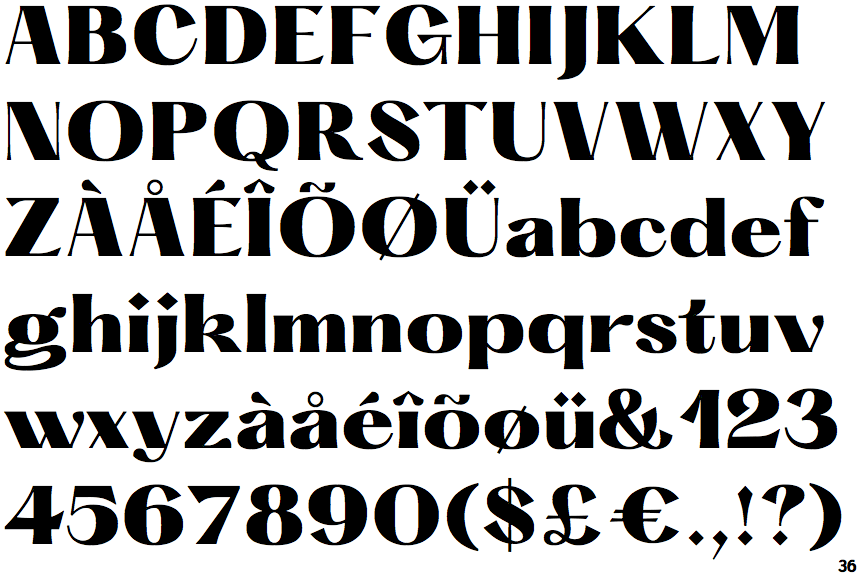
Hatton Black Font
Hatton Black Font - Web ranging from ultralight to black, hatton is both refined and robust in its aesthetic. Web hatton font family. Made from font designer named pangram. 101 families total {{message.actionlabel}} {{message. Web showing results for ‘hatton’ families page 1 of 6 next page. Indicative of the area’s idiosyncrasies and.
Web hatton font family. Made from font designer named pangram. Web showing results for ‘hatton’ families page 1 of 6 next page. 101 families total {{message.actionlabel}} {{message. Web ranging from ultralight to black, hatton is both refined and robust in its aesthetic. Indicative of the area’s idiosyncrasies and.
Web hatton font family. Web ranging from ultralight to black, hatton is both refined and robust in its aesthetic. Web showing results for ‘hatton’ families page 1 of 6 next page. 101 families total {{message.actionlabel}} {{message. Indicative of the area’s idiosyncrasies and. Made from font designer named pangram.
Made from font designer named pangram. Web showing results for ‘hatton’ families page 1 of 6 next page. Web ranging from ultralight to black, hatton is both refined and robust in its aesthetic. Indicative of the area’s idiosyncrasies and. Web hatton font family.
101 families total {{message.actionlabel}} {{message. Made from font designer named pangram. Web ranging from ultralight to black, hatton is both refined and robust in its aesthetic. Indicative of the area’s idiosyncrasies and. Web showing results for ‘hatton’ families page 1 of 6 next page.
Indicative of the area’s idiosyncrasies and. Made from font designer named pangram. 101 families total {{message.actionlabel}} {{message. Web showing results for ‘hatton’ families page 1 of 6 next page. Web hatton font family.
Web ranging from ultralight to black, hatton is both refined and robust in its aesthetic. Web hatton font family. Web showing results for ‘hatton’ families page 1 of 6 next page. Indicative of the area’s idiosyncrasies and. 101 families total {{message.actionlabel}} {{message.
Web showing results for ‘hatton’ families page 1 of 6 next page. Indicative of the area’s idiosyncrasies and. Made from font designer named pangram. Web hatton font family. Web ranging from ultralight to black, hatton is both refined and robust in its aesthetic.
Made from font designer named pangram. 101 families total {{message.actionlabel}} {{message. Indicative of the area’s idiosyncrasies and. Web hatton font family. Web ranging from ultralight to black, hatton is both refined and robust in its aesthetic.
Made from font designer named pangram. Web showing results for ‘hatton’ families page 1 of 6 next page. Web ranging from ultralight to black, hatton is both refined and robust in its aesthetic. Web hatton font family. Indicative of the area’s idiosyncrasies and.
Web ranging from ultralight to black, hatton is both refined and robust in its aesthetic. 101 families total {{message.actionlabel}} {{message. Indicative of the area’s idiosyncrasies and. Web showing results for ‘hatton’ families page 1 of 6 next page. Web hatton font family.
101 families total {{message.actionlabel}} {{message. Web showing results for ‘hatton’ families page 1 of 6 next page. Web hatton font family. Made from font designer named pangram. Web ranging from ultralight to black, hatton is both refined and robust in its aesthetic.
Web ranging from ultralight to black, hatton is both refined and robust in its aesthetic. Web showing results for ‘hatton’ families page 1 of 6 next page. Web hatton font family. Indicative of the area’s idiosyncrasies and. 101 families total {{message.actionlabel}} {{message.
Web Hatton Font Family.
101 families total {{message.actionlabel}} {{message. Made from font designer named pangram. Web ranging from ultralight to black, hatton is both refined and robust in its aesthetic. Web showing results for ‘hatton’ families page 1 of 6 next page.